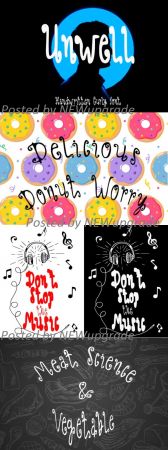
Unwell is a unique, simple and friendly handwritten font. Its playful feel makes this font incredibly versatile, fitting a wide range of contexts. Add it to your creative ideas and notice how it makes them stand out!